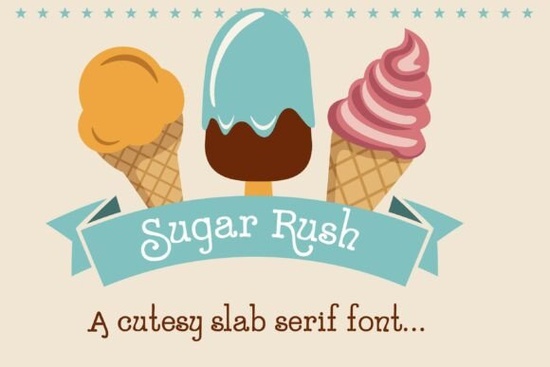
If you're looking for a friendly, slightly playful slab serif that works just as well on a cupcake box as it does in a children’s book layout, Sugar Rush Font is worth your attention. It’s not overly sweet or cartoonish instead, it balances structure and charm with soft curling flourishes on lowercase letters and clean, blocky serifs. That makes it especially useful if you’re designing for small food businesses, craft-based brands, or print-on-demand projects where personality matters but readability can’t be sacrificed.
When does Sugar Rush Font actually fit best?
This isn’t a font you’d reach for when designing a law firm brochure or a technical manual. Its strengths shine in contexts where warmth, approachability, and subtle nostalgia matter. Think: the logo for a local ice cream truck, the menu board at a neighborhood bakery, or even hand-lettered-style social media graphics for a maker selling handmade cookies or custom birthday banners.
Because of its medium weight and consistent baseline, it holds up well at both small sizes (like on product tags) and larger displays (such as signage or Instagram story text). Unlike some highly decorative fonts, Sugar Rush stays legible even when used in short bursts of copy like “Freshly Baked,” “Gluten-Free,” or “Open Daily.”
How does it compare to other slab serifs on Creative Fabrica?
Slab serifs are having a quiet moment right now not the bold, industrial kind from the 1970s, but friendlier, more curated versions made for modern small businesses. Sugar Rush sits comfortably between vintage storybook energy and current dessert branding trends. If you’ve tried Derona Font, you’ll notice Derona leans more structured and editorial great for luxury packaging or refined stationery but less playful. Meanwhile, the Luxury Editorial Bundle includes several high-contrast serifs ideal for fashion or premium lifestyle brands, but they don’t have Sugar Rush’s gentle curves or cozy feel.
In short: choose Sugar Rush when you want character without clutter, and when your audience responds to sincerity over polish.
Real uses you can try this week
- Design a printable “Happy Birthday” banner using Sugar Rush for the headline and a simple sans-serif for body text this pairing works beautifully for party supplies.
- Create a set of Instagram post templates for a small-batch jam brand: use Sugar Rush for flavor names (“Blackberry Lavender,” “Spiced Peach”) and keep descriptions light and clean.
- Make custom vinyl decals for a kids’ baking class “Little Chef Approved” or “Sprinkles Included” cutting the font cleanly on a Cricut or Silhouette.
- Pair it with a warm neutral palette (think oat, terracotta, or sage) for a cohesive look across labels, receipts, and thank-you cards.
One thing to keep in mind: while Sugar Rush has personality, it’s not a display-only font. You can use it for short paragraphs in invitations or mini zines but avoid long blocks of body text. For those, pair it with something airy and legible like Lora, Playfair Display, or even a relaxed sans-serif like Quicksand.
- ✅ You need a font that feels handmade but still prints clearly.
- ✅ Your project involves food, children, celebrations, or cozy creative branding.
- ✅ You’re okay with a single-weight font (no light or bold variants included).
- ✅ You’ll use it mostly for headlines, logos, or short phrases not long paragraphs.
If most of those apply, Sugar Rush Font is likely a practical, thoughtful addition to your toolkit not just another pretty download.